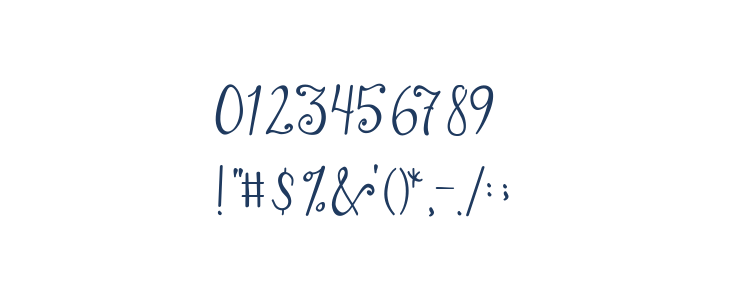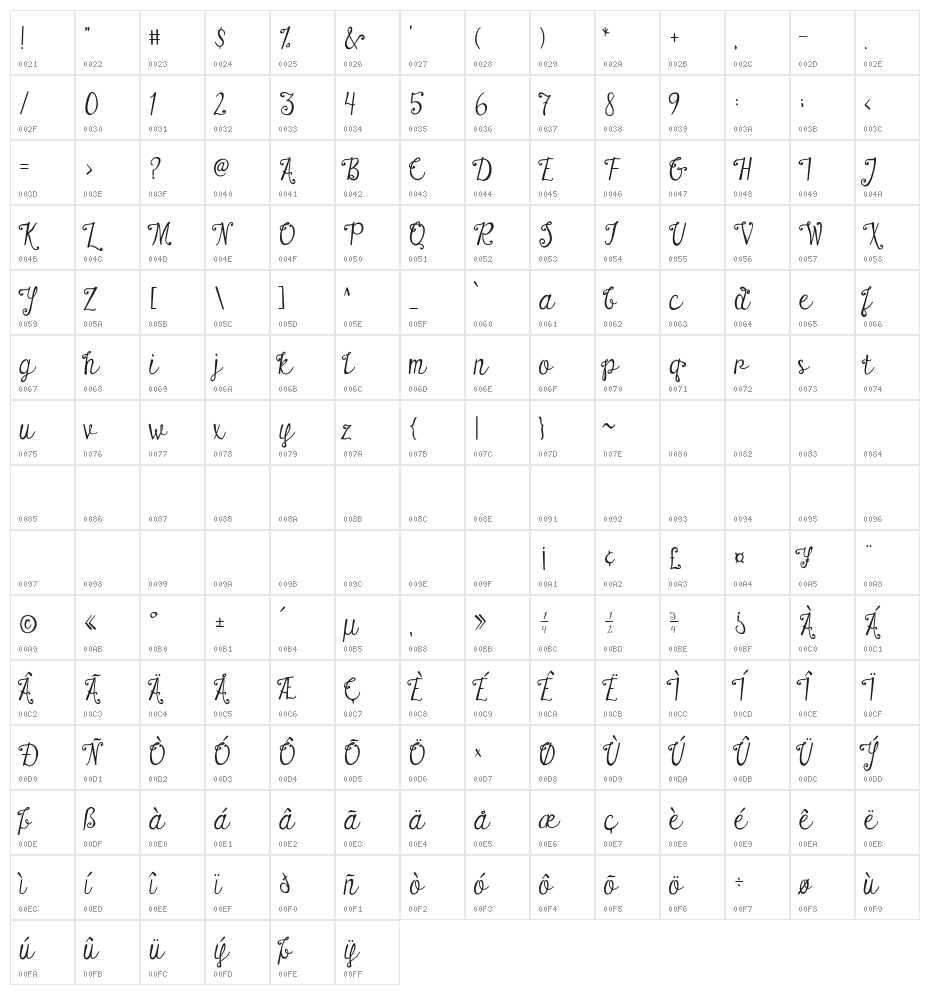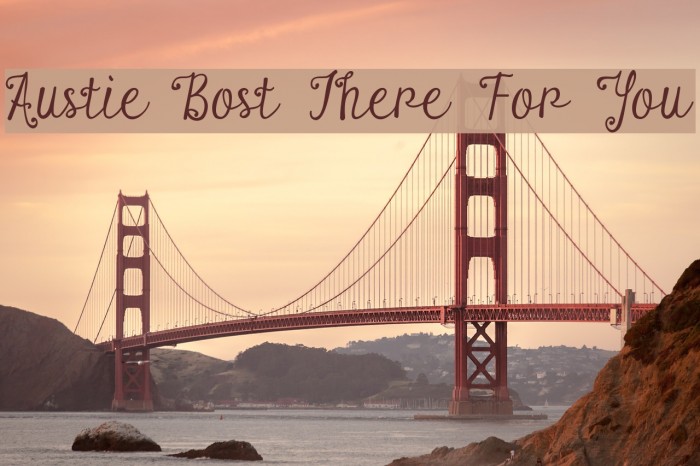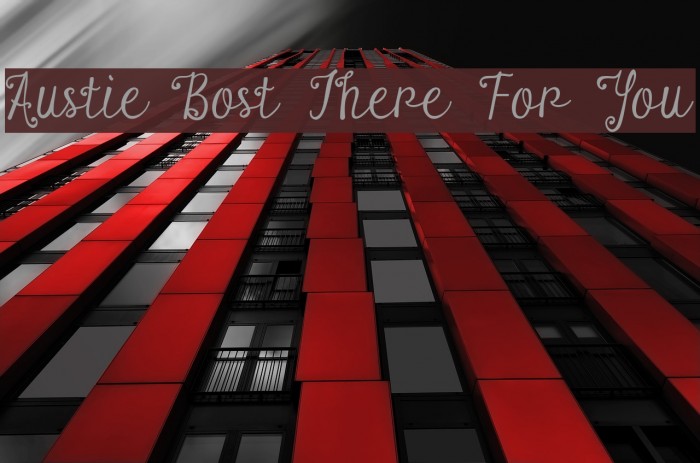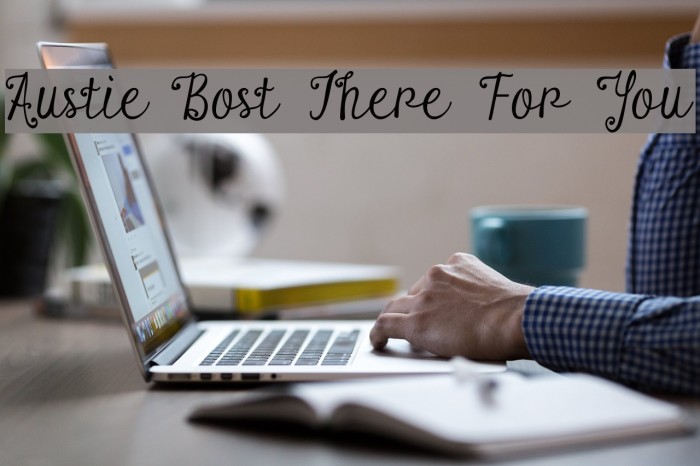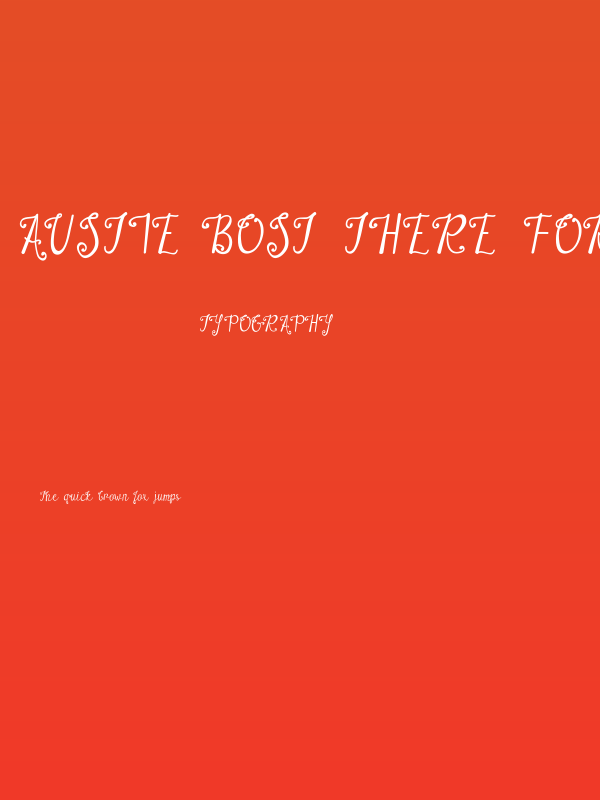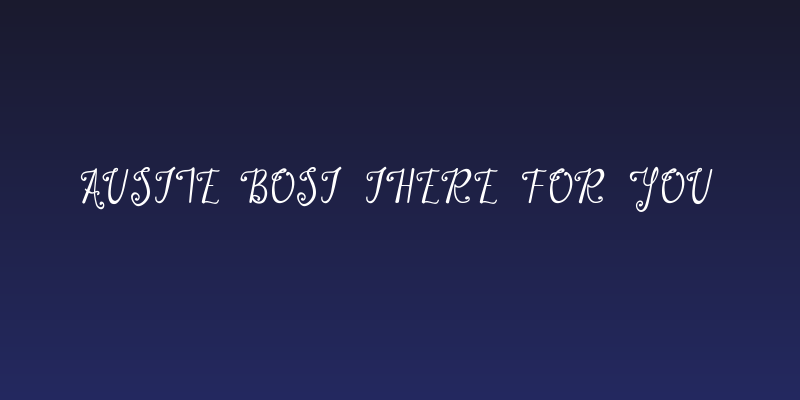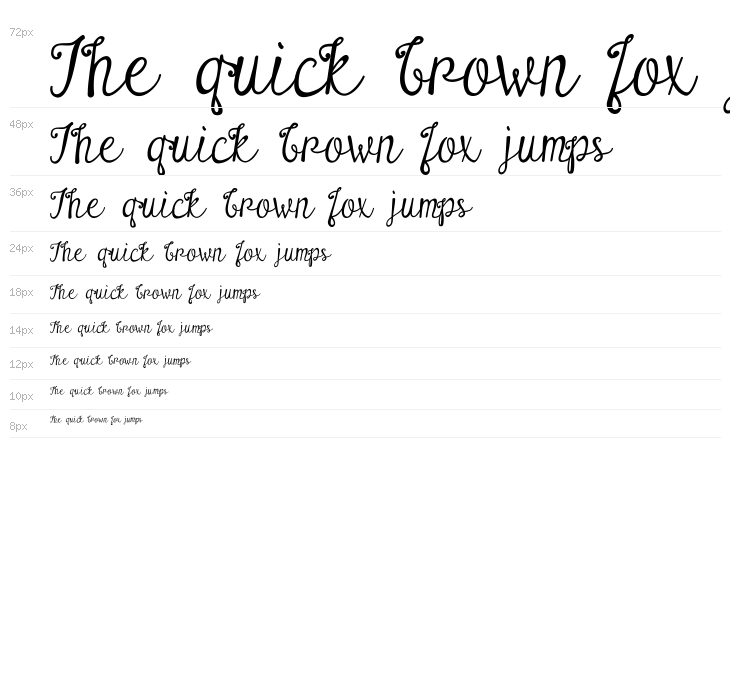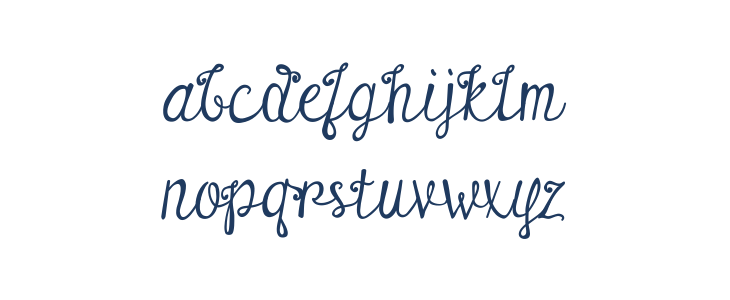
Austie Bost There For You Font
Austie Bost There For You Description
This font exudes a playful and whimsical charm, characterized by its curly and decorative serifs. Each letter is adorned with unique swirls and loops, giving it a lively and animated appearance. The uppercase letters are particularly ornate, with exaggerated flourishes that add a touch of elegance and flair. The lowercase letters maintain a consistent style, with smooth curves and a slightly informal feel. Numbers and special characters are crafted with the same attention to detail, ensuring a cohesive look across all elements. This font is perfect for projects that require a fun and engaging aesthetic, such as invitations, greeting cards, or children's book covers. Its distinctive style makes it stand out, while still being legible and versatile.
| Overall Style | Whimsical |
| Use Case | Headlines, Decorative text |
| Proposed Projects | Ideal for invitations, greeting cards, children's books, and playful branding. |